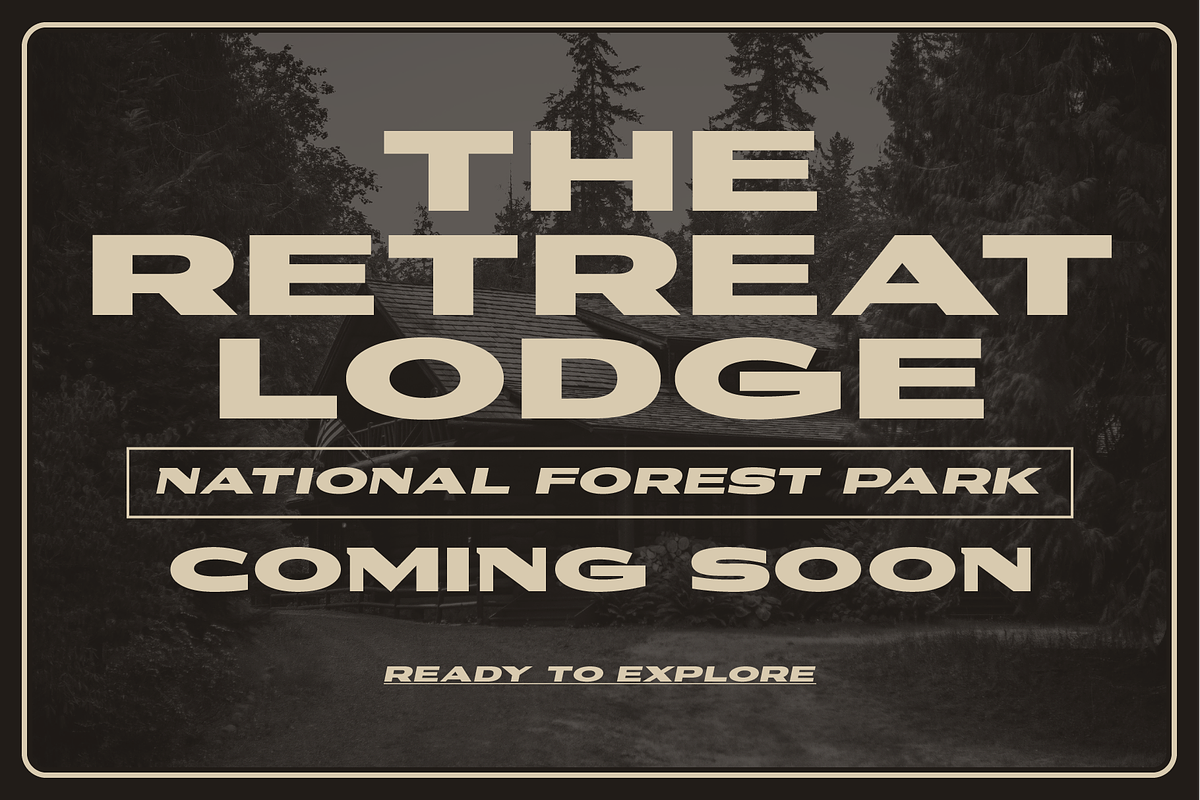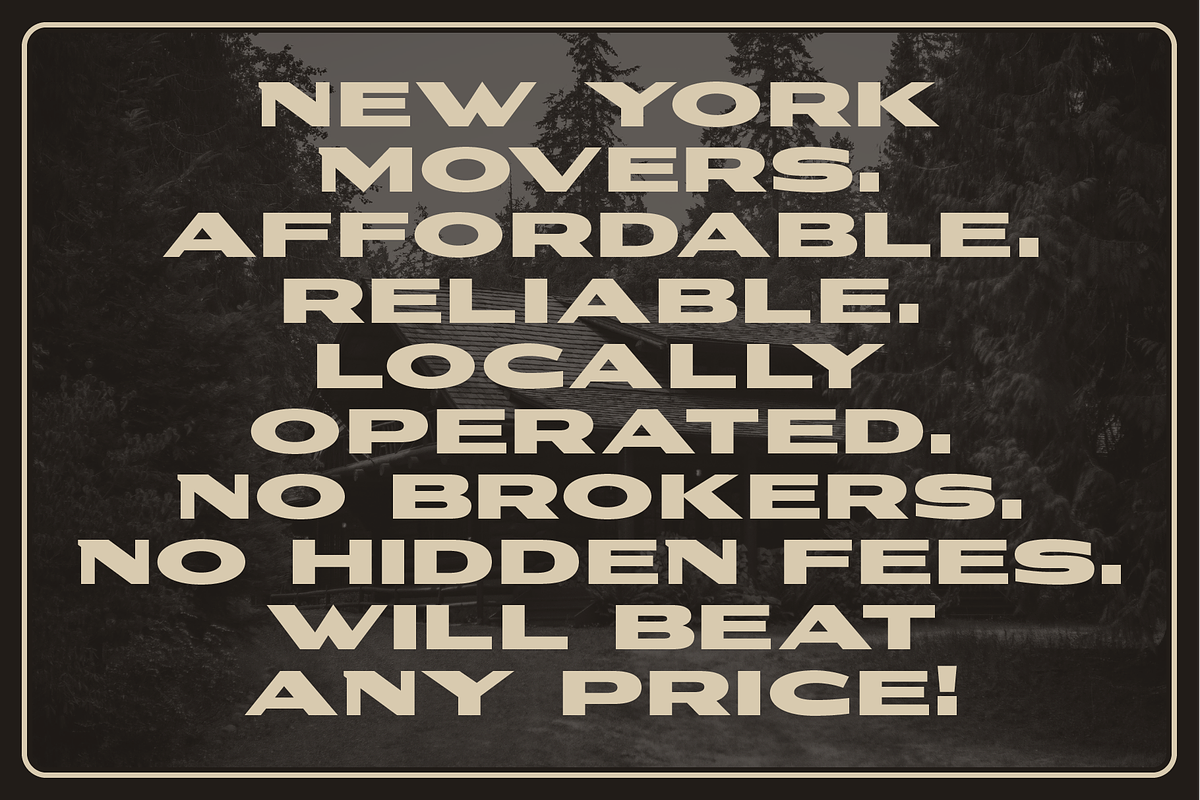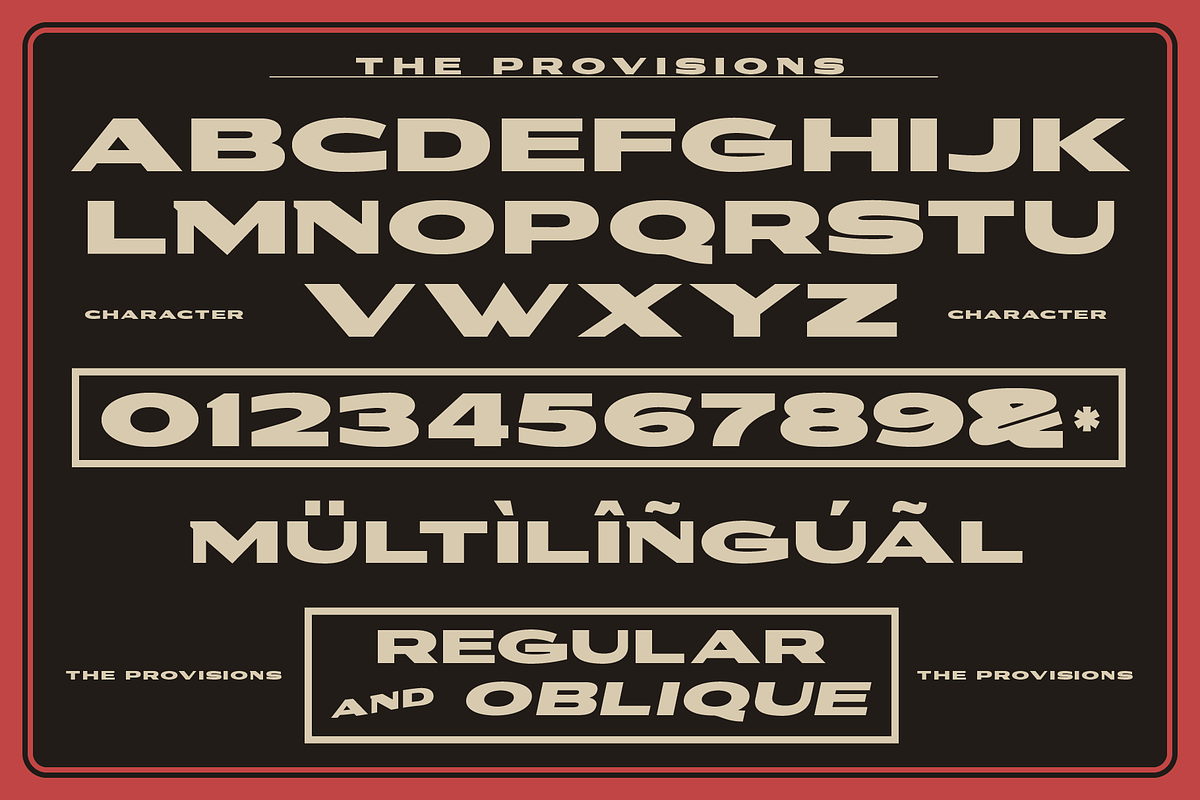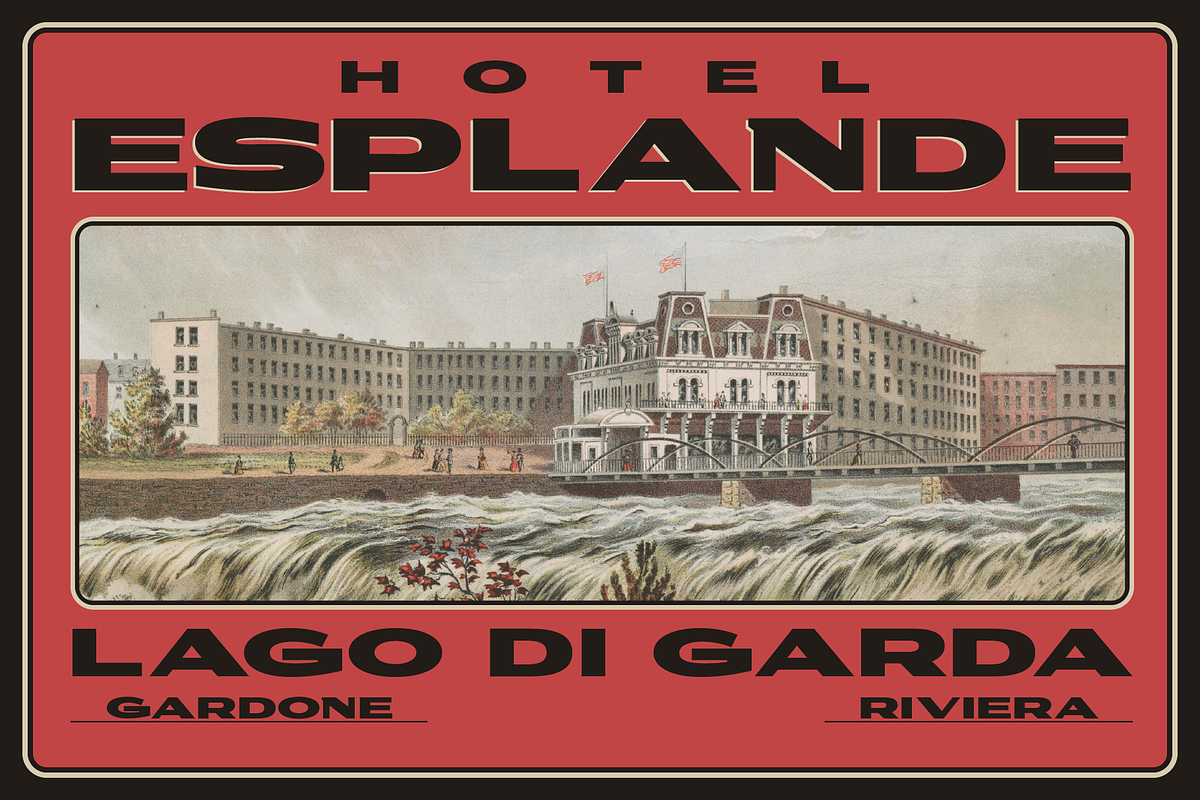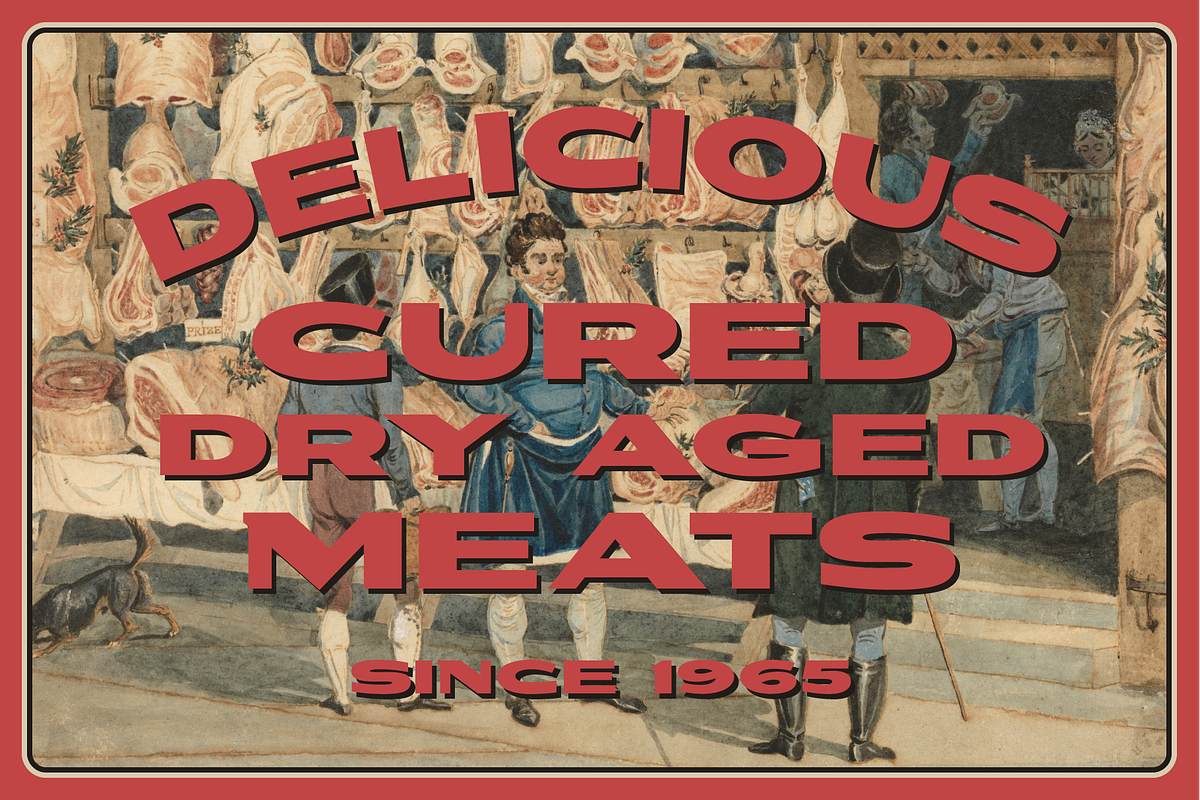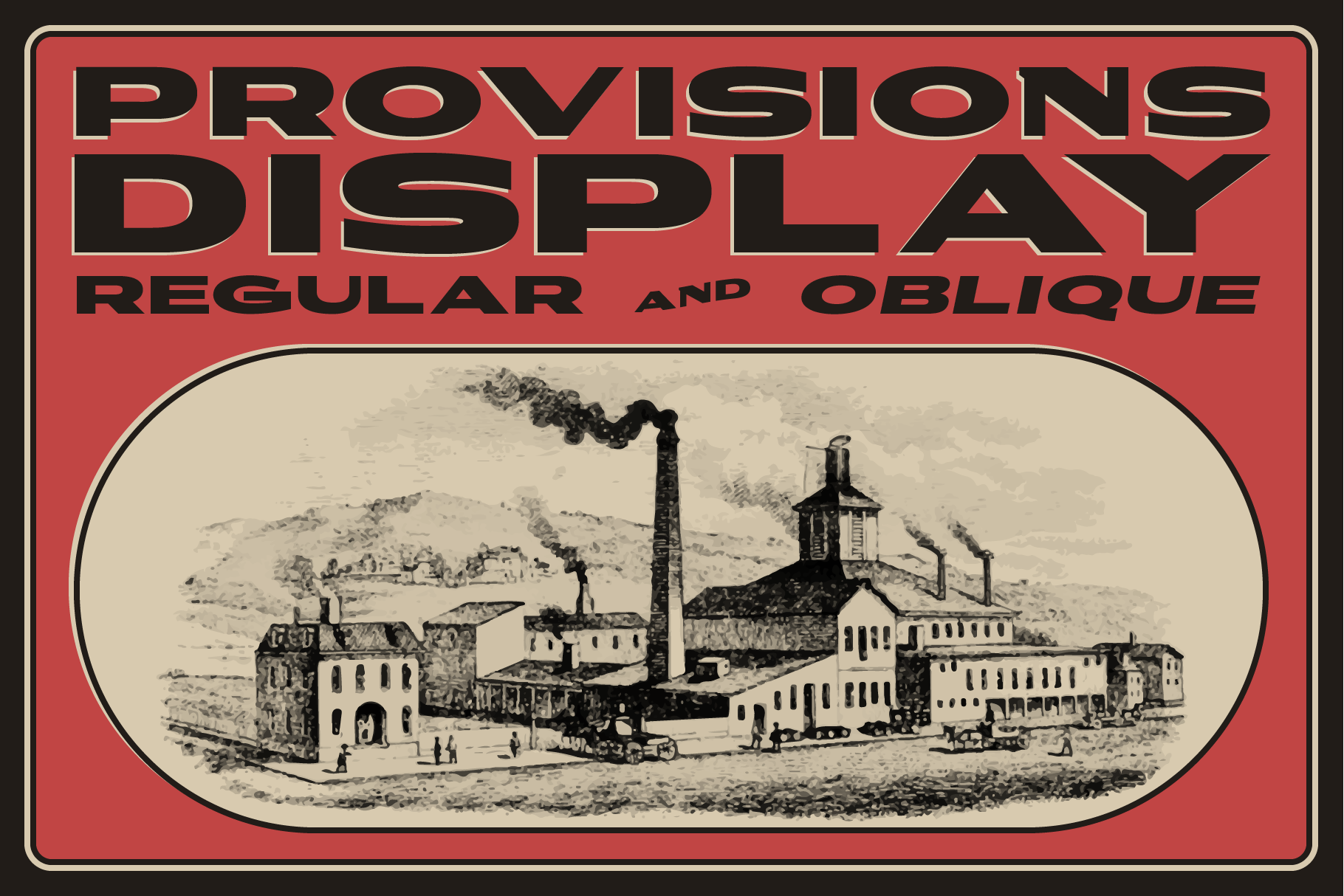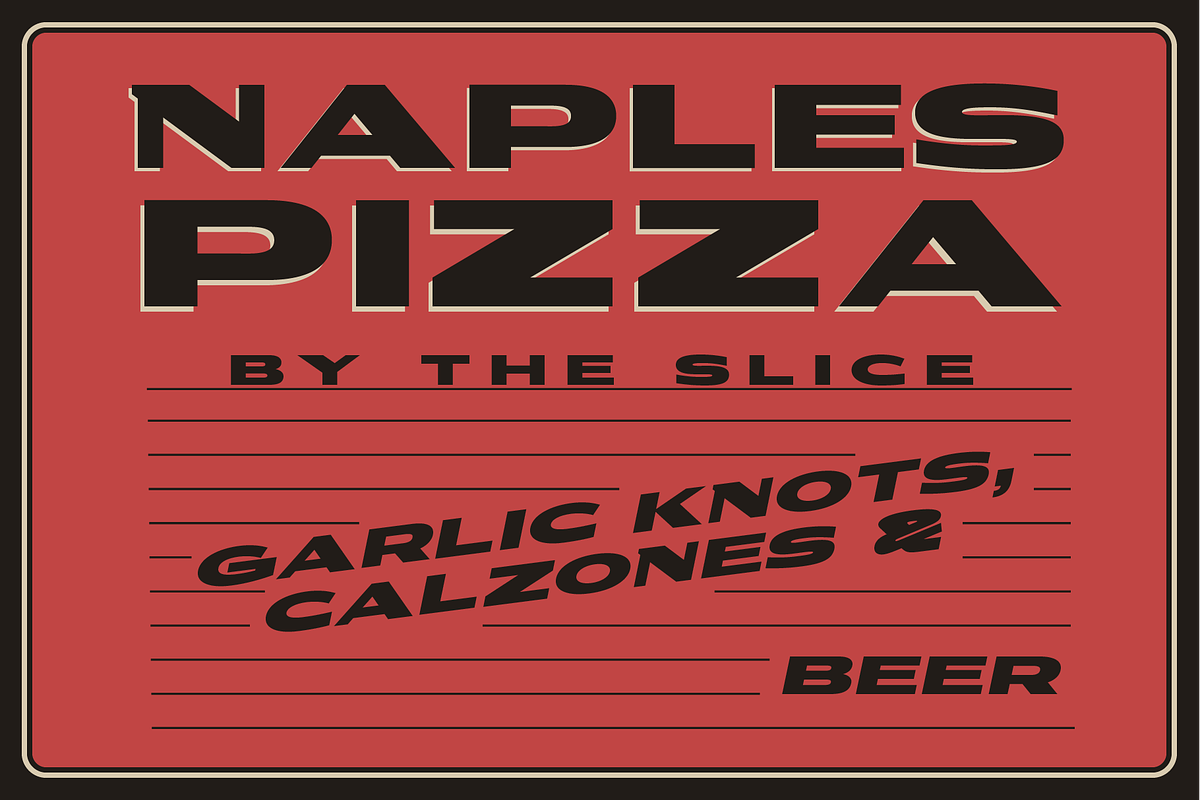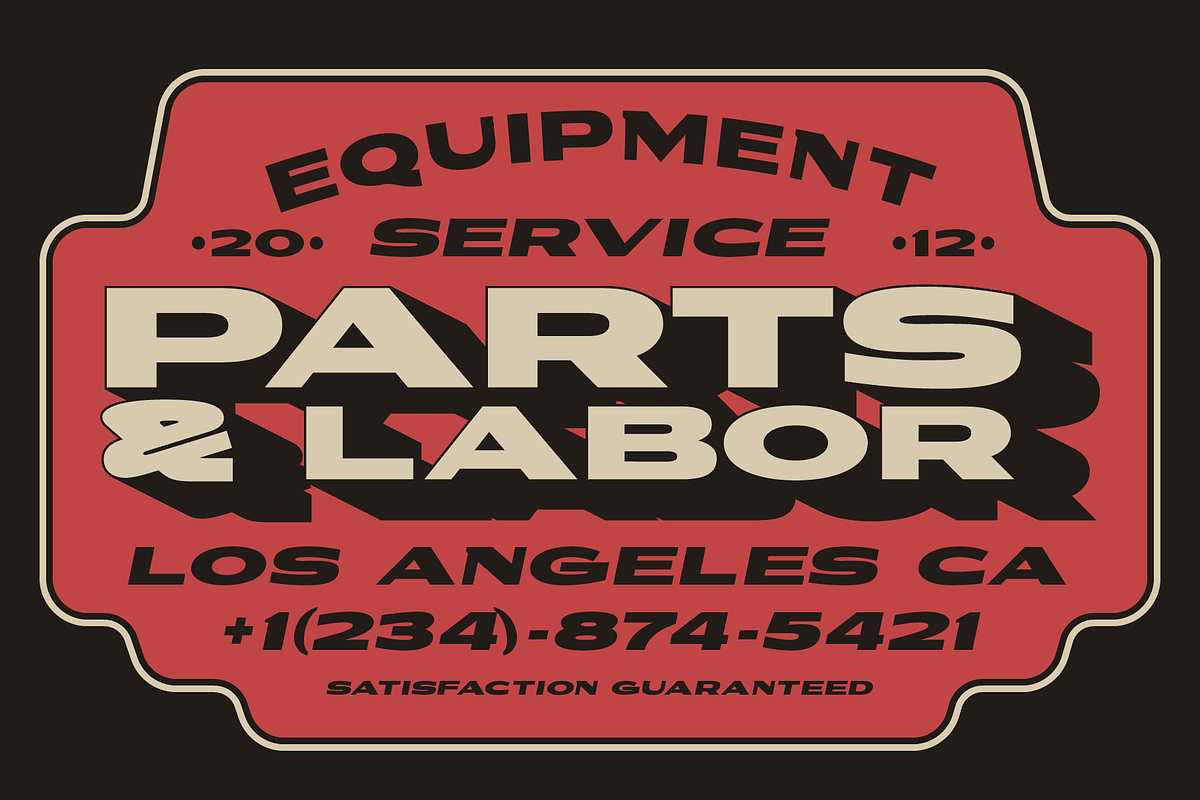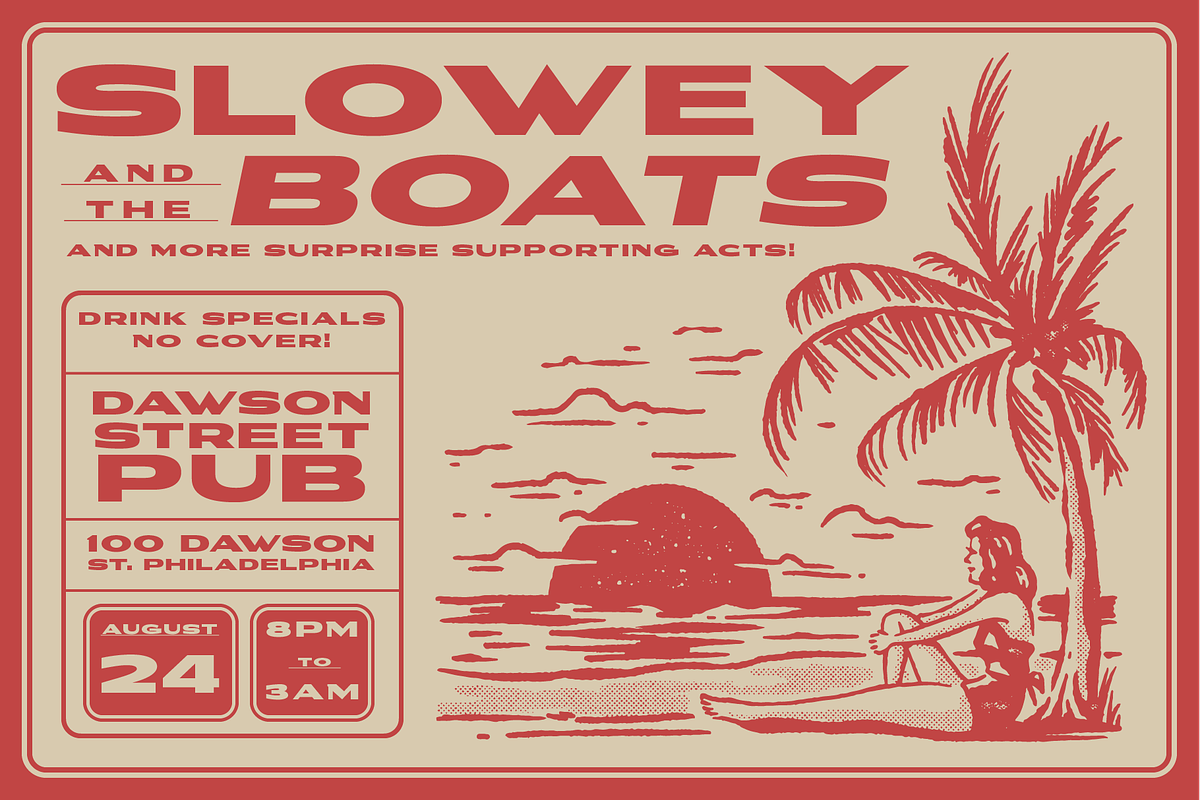
Provisions - Industrial Retro Font
Provisions is a retro sans serif display font that was inspired by classic, hard working blue collar businesses such as mechanics, delis, butchers, pubs and machine shops.
This versatile typeface is perfect for capturing that same era in your own branding and logo design, while also working well in apparel designs, labels, packaging & more.
The full version of Provisions includes both regular and oblique styles, each with a complete set of multilingual characters.